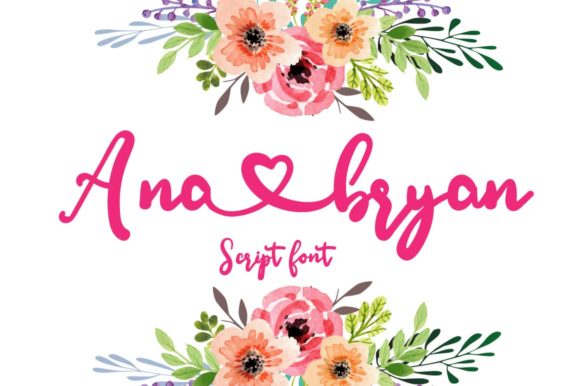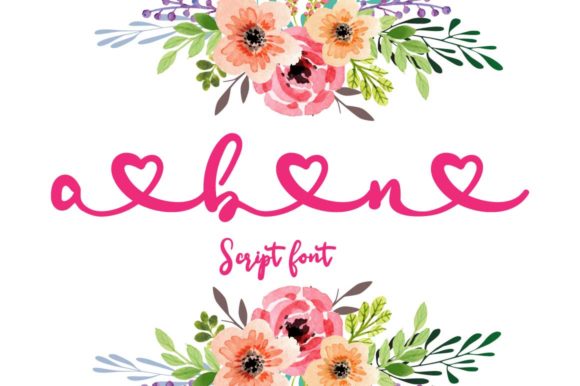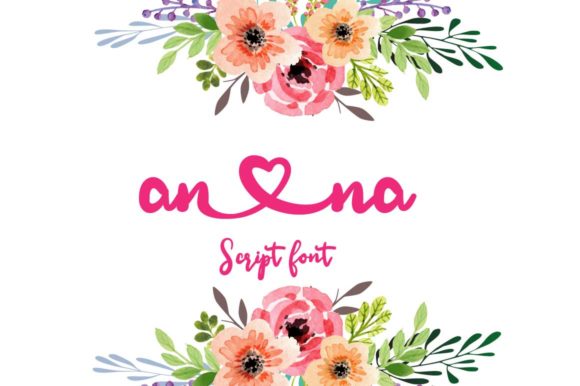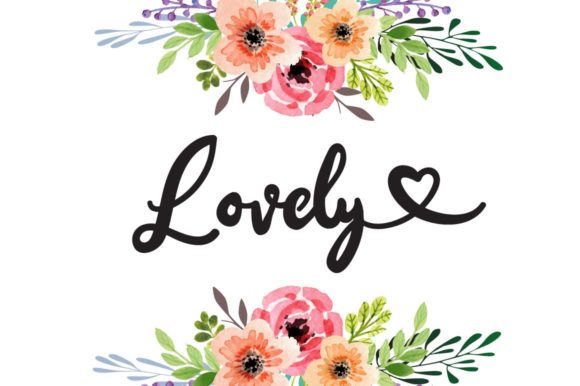
Ana Bryan Font
About Ana Bryan Font
Ana Bryan is an adorable and cute font with lovely, handwritten elements. Use it for any design ideas that require a romantic twist.